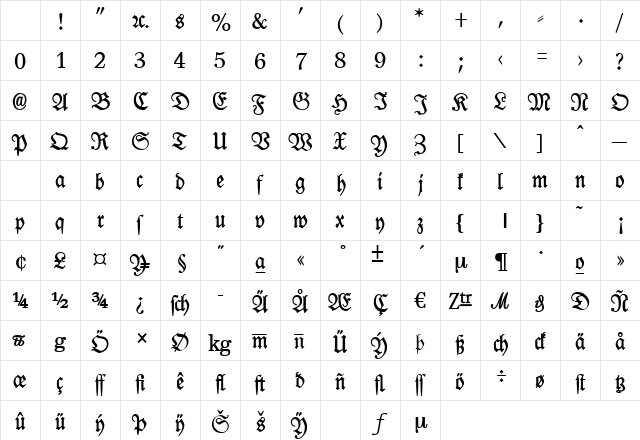
Complete Leipzig Fraktur Bold Regular glyph index. Displaying only characters natively supported by Leipzig Fraktur Bold Regular font.
Leipzig Fraktur Bold draws on the rich tradition of blackletter calligraphy, with dense, angular strokes that evoke medieval manuscripts and old-world craftsmanship. Its bold stroke weight gives it real presence on the page.
Font Pairing: Pair with a clean neutral sans-serif for body copy to let Leipzig Fraktur Bold's character lead without overwhelming the composition.
Pro Tip: Reserve Leipzig Fraktur Bold for display and logo use - pair it with a clean sans-serif for body copy to prevent the composition from feeling oppressive.